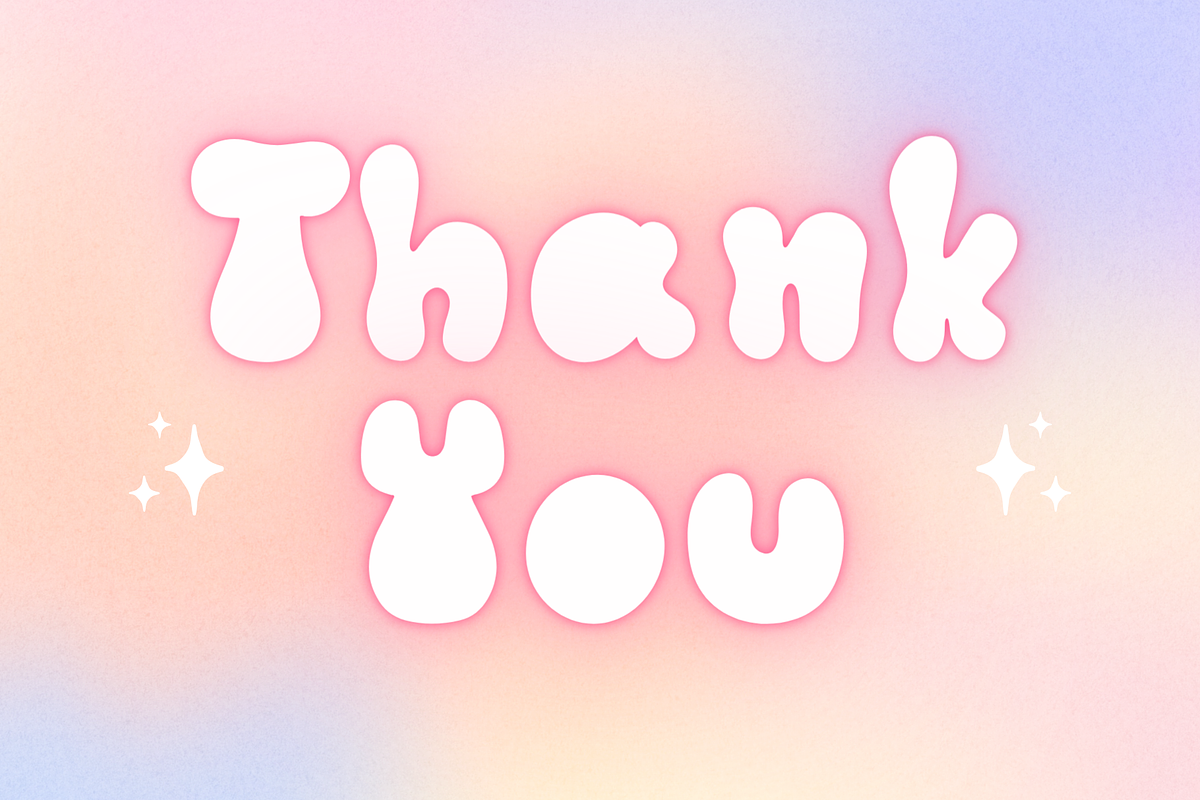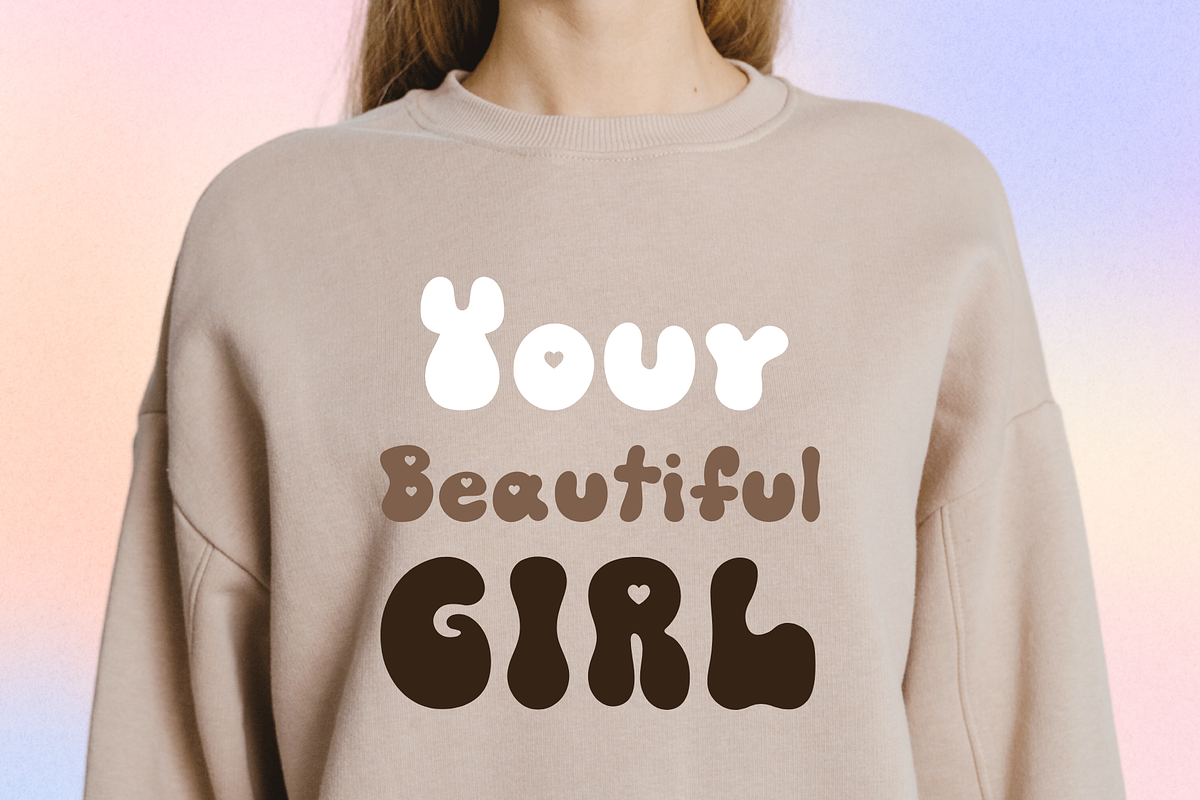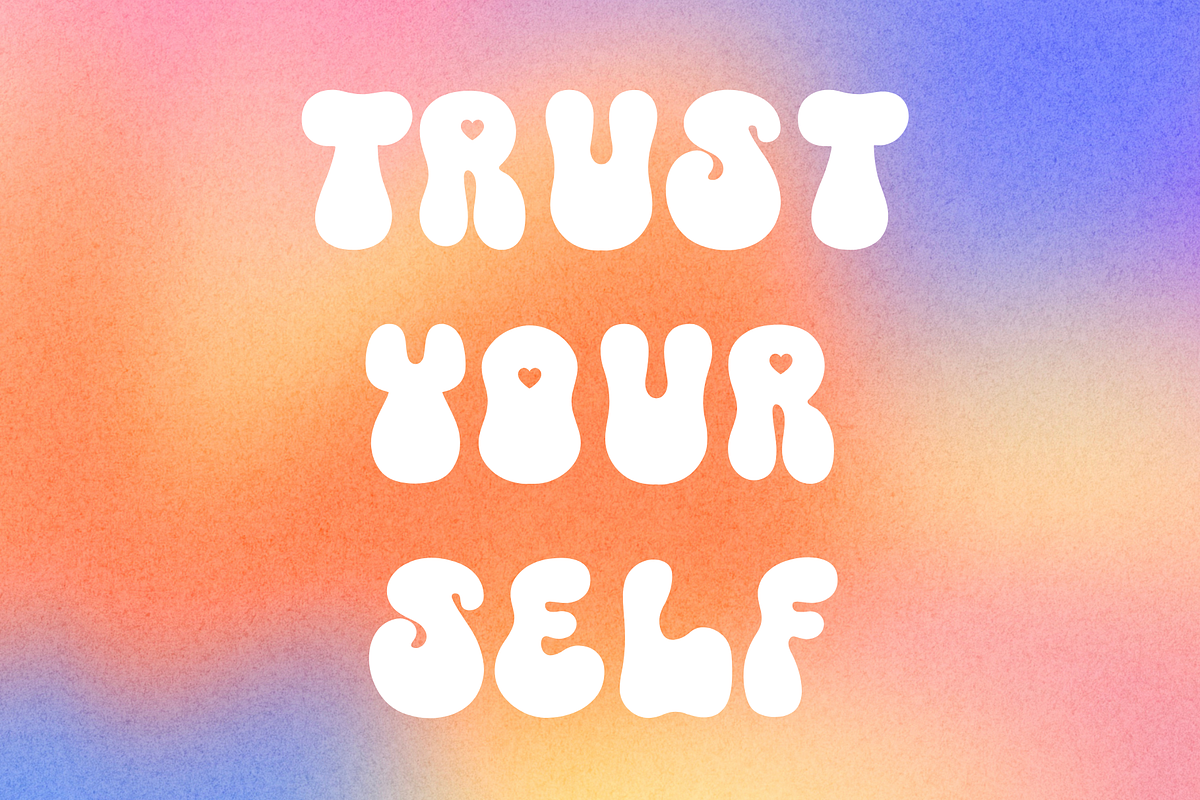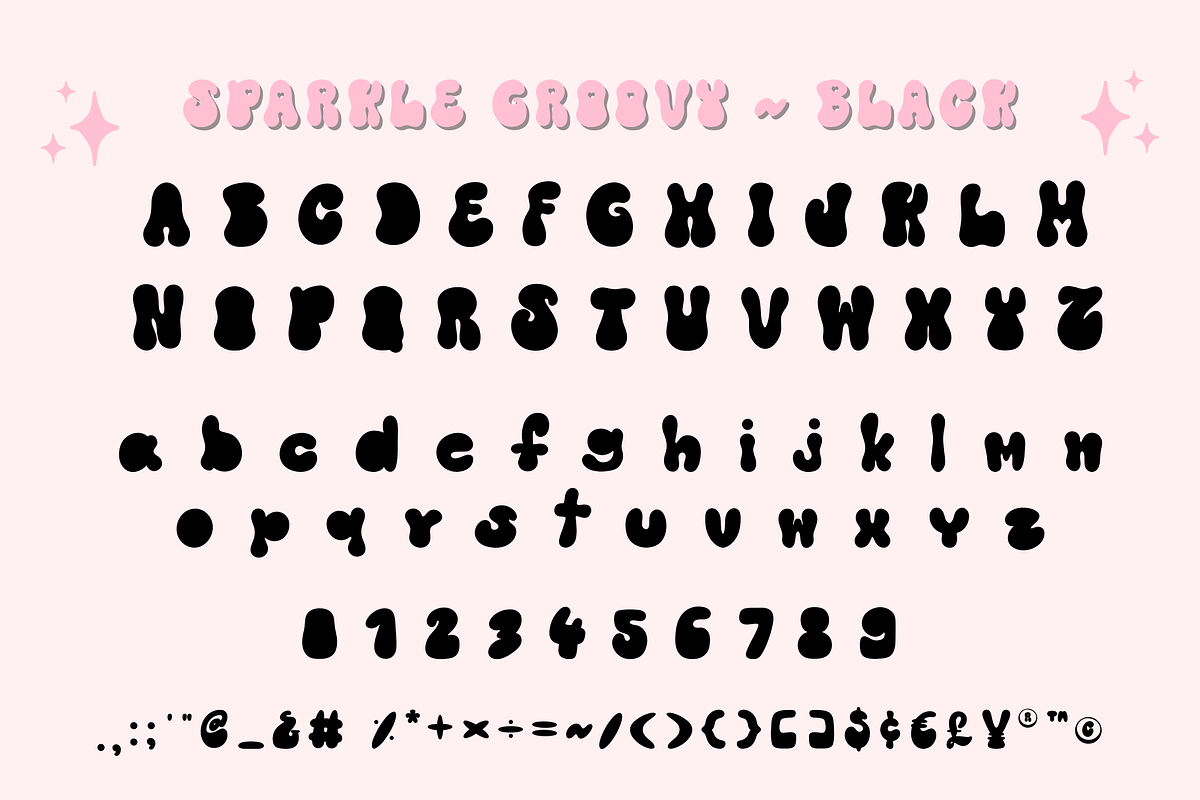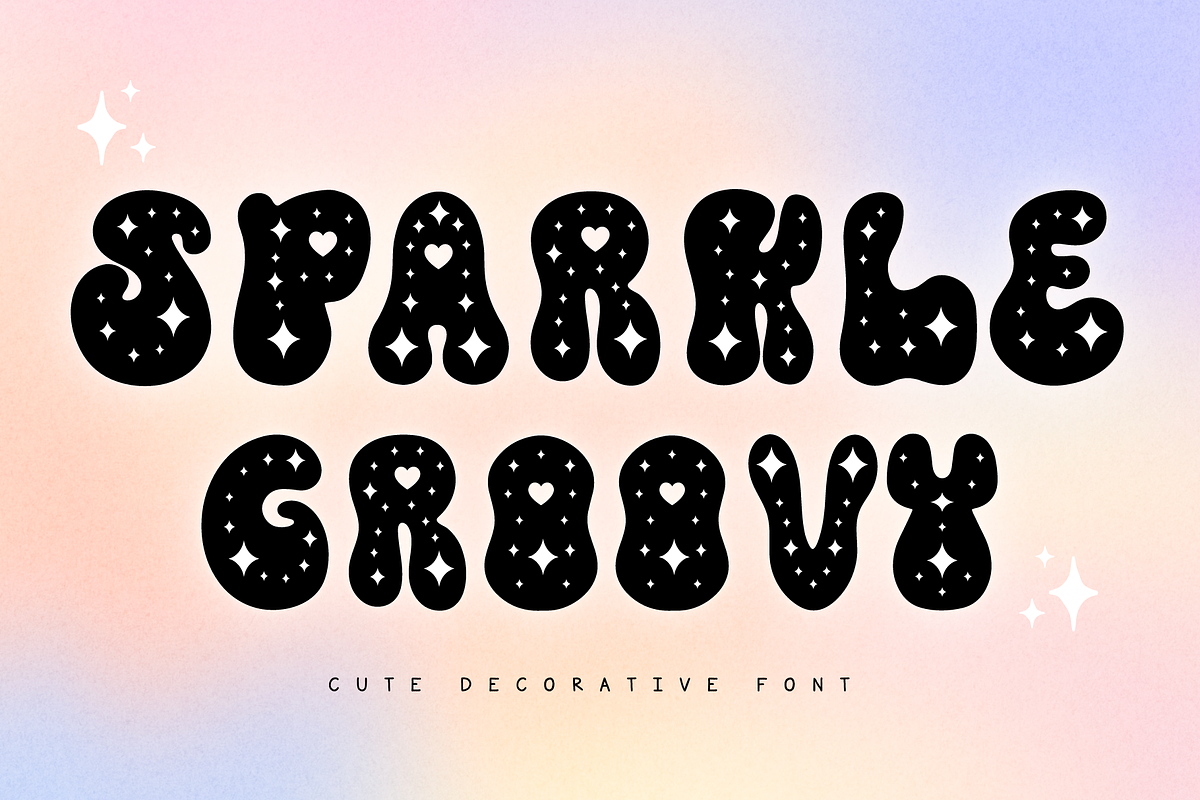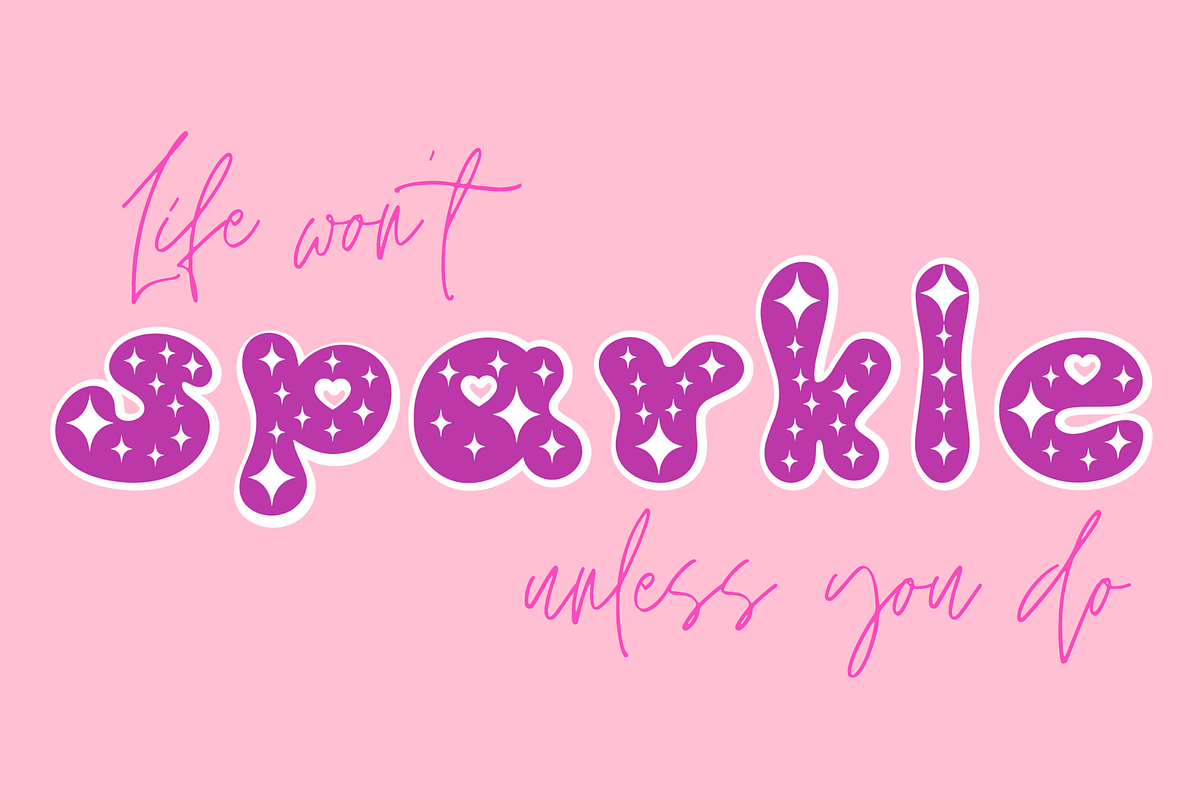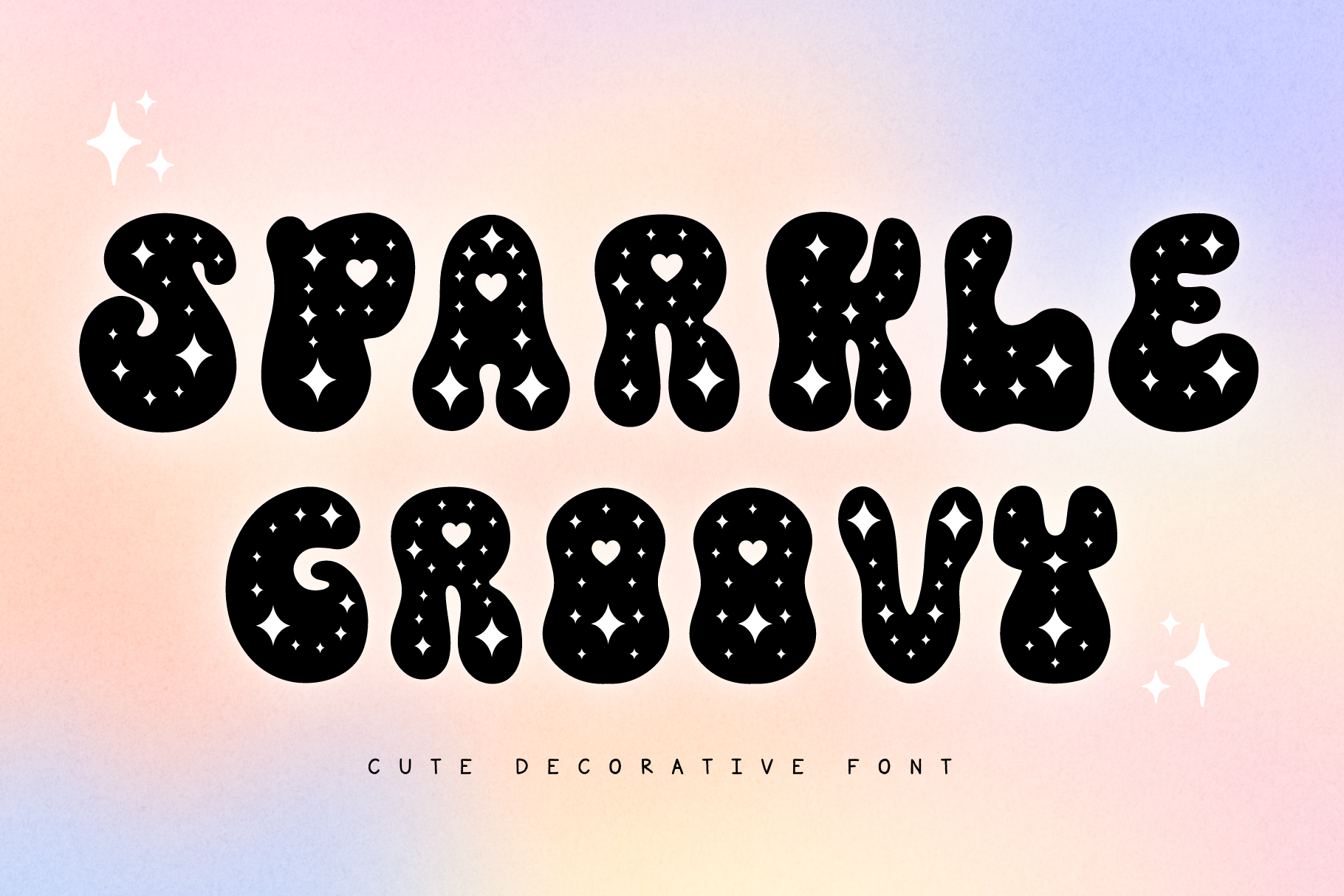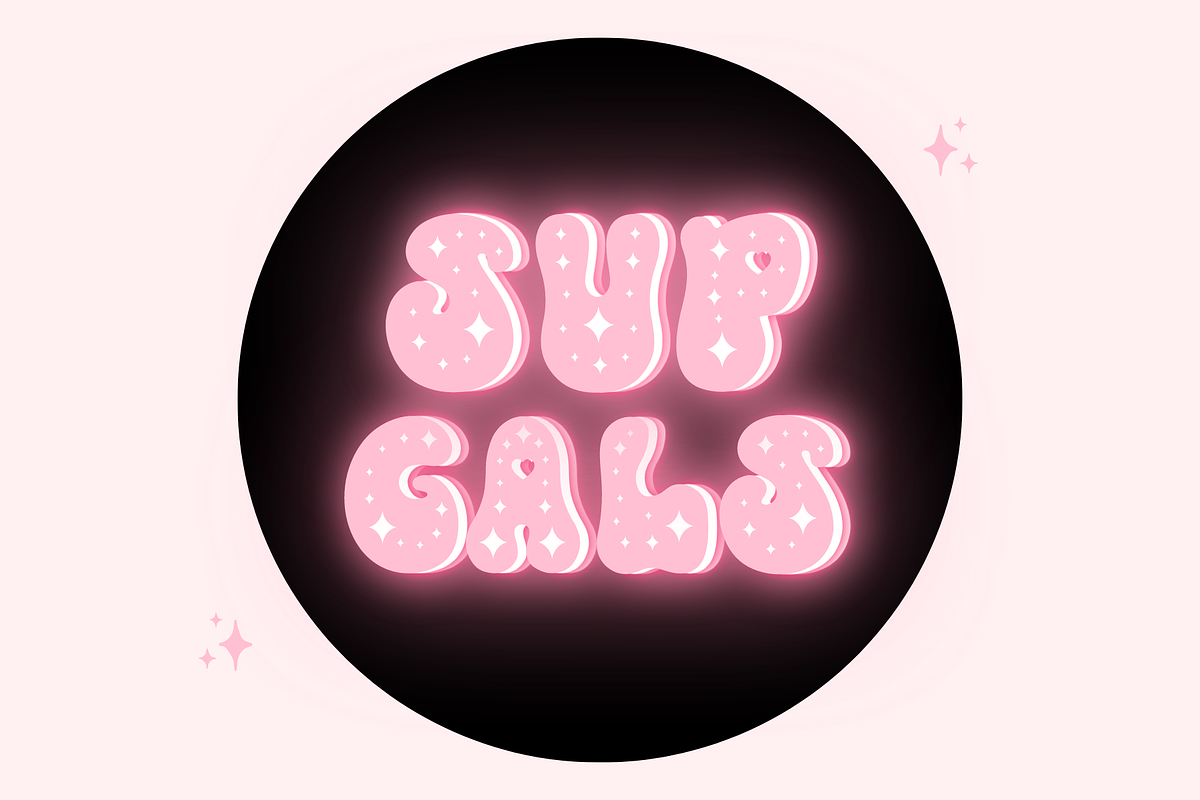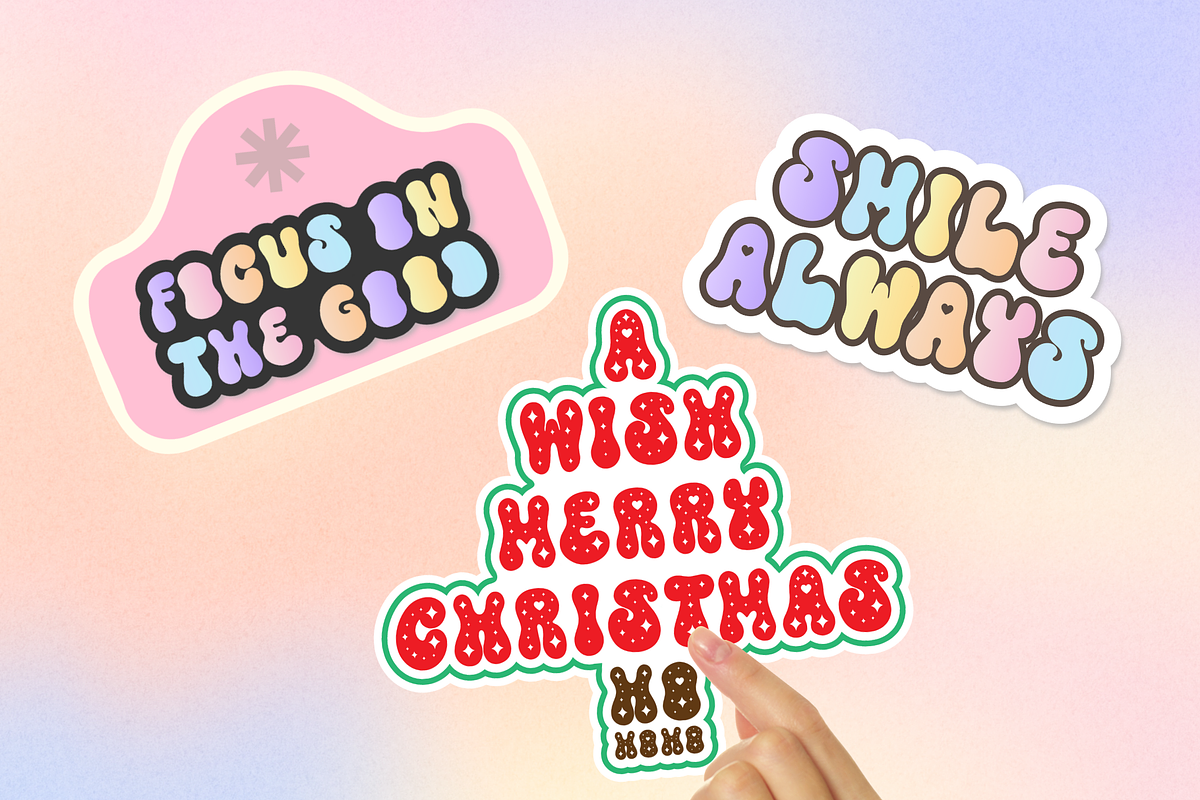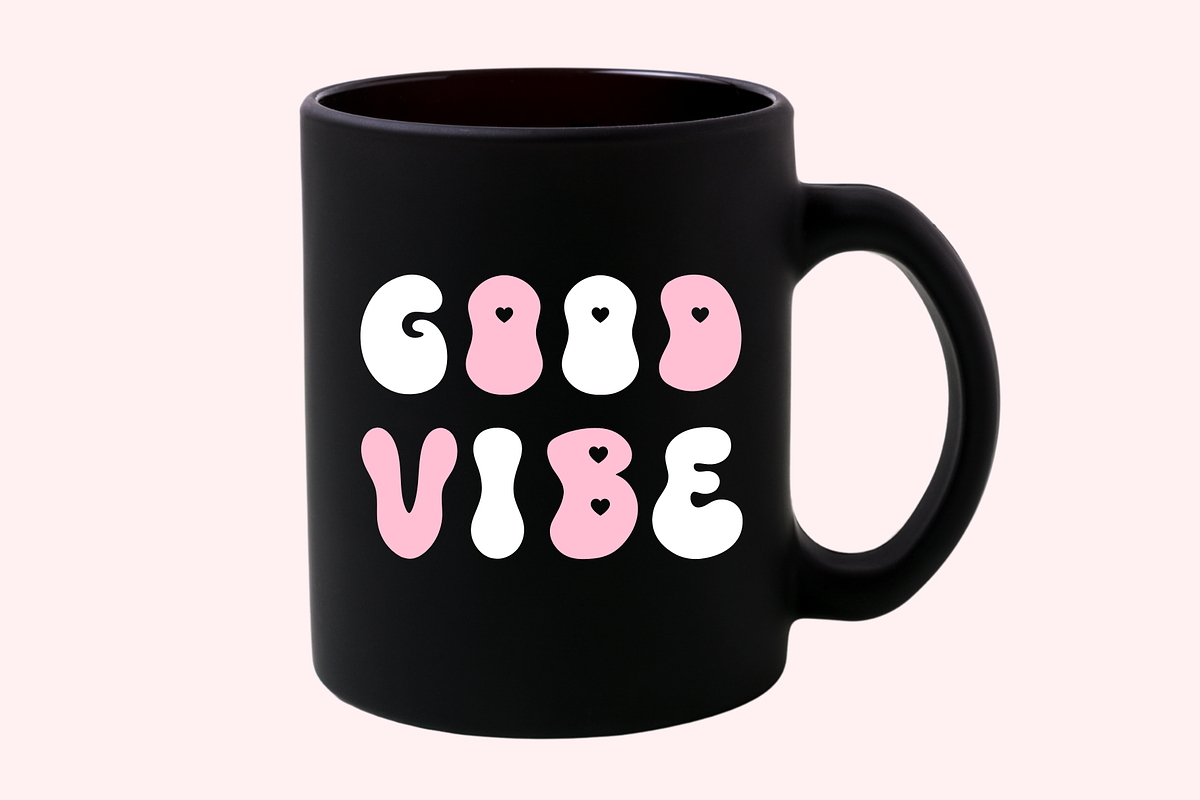
Sparkle Groovy Cute Decorative Font
Sparkle Groovy is a decorative font that embodies the essence of retro aesthetics and vibrant, dynamic energy. With its playful curves, whimsical letterforms, and dazzling ornamentation, it brings a touch of nostalgia and joy to any design project.